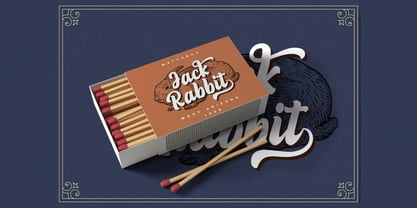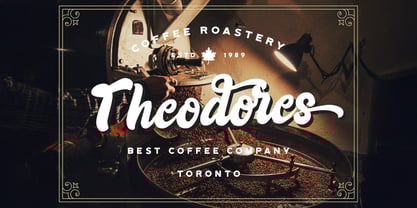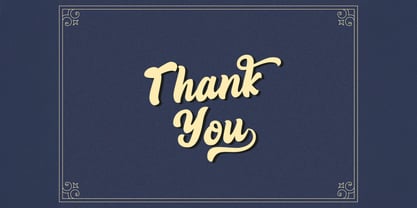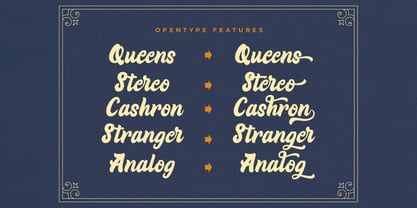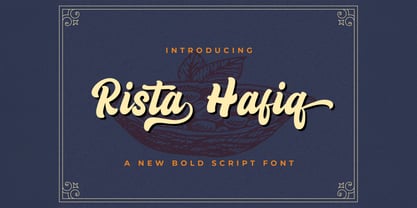
The Rista Hafiq Font Family was designed by Virgiawan Listanto and published by Stringlabs Creative Studio. Rista Hafiq contains 1 styles.
Rizta Hafiq is a striking retro bold script font that effortlessly blends nostalgic charm with a modern edge. With its bold, sweeping strokes and energetic curves, this font brings a sense of confidence and fun to your designs.
Rista Hafiq